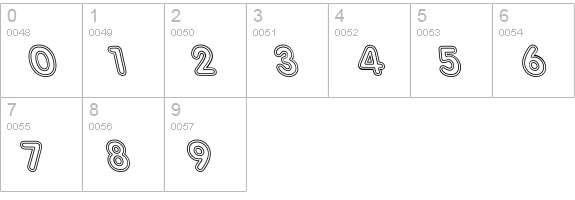
SuperglutBionic Font Details
Introducing SuperglutBionic font, a cutting-edge and futuristic typeface that will elevate your design projects to the next level. With its sleek lines and dynamic energy, SuperglutBionic exudes a sense of power and innovation. This font is perfect for technology, sci-fi, and modern-themed designs. What's even better is that SuperglutBionic is completely free to download at FontsMarket.com. That's right, you can enhance your creative projects with this striking font without any cost. Don't miss out on the opportunity to add a touch of sophistication and modernity to your designs with SuperglutBionic. Download it now and watch your designs come to life!